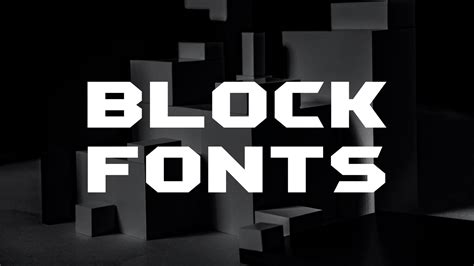
Unlock Your Creativity with Trendy & Free Block Fonts - Embrace the Modern Look
Are you tired of using the same old boring fonts in your designs? Do you want to add a modern touch to your projects? Look no further than trendy and free block fonts!
Not only do block fonts provide a clean and sleek aesthetic, but they also offer boldness and emphasis to your message. Studies have shown that the use of unique fonts can increase readability and recall.
With countless options for block fonts available online, you can boost your creativity and stand out from the crowd. Plus, since they are free to use, you can save money while still producing professional-looking designs.
Embrace the modern look and explore the wide variety of block fonts available. Whether you're designing a logo, creating a poster, or crafting social media graphics, trendy block fonts can elevate your work to the next level.
From chunky to slim, sci-fi to classic, there's a block font for every style and message. So why not unlock your creativity and try something new? Your audience will thank you for it.
Don't let your designs fall flat with overused fonts. Take the leap and incorporate trendy and free block fonts. Your projects will thank you for it!
The Power of Fonts in Your Creativity
When it comes to expressing your ideas through visual elements, fonts play a crucial role. A font is not just a style of letters and numbers; it can convey emotions, personality, and even enhance or detract from the overall tone and message of your design. Choosing the right font can make or break a project, and this is where trendy and free block fonts come in.
The Advantages of Using Block Fonts
Block fonts are also known as sans-serif fonts. They don't have the small quirks and embellishments that other fonts possess, which makes them more straightforward and modern in appearance. These fonts are perfect for designs that need to make a bold statement or deliver a clear message effectively. Here are some of the advantages of using block fonts in your projects:
Functionality
Block fonts are easier to read, especially in smaller sizes, because they don't have any extra details that can get lost. Their simplicity means that they work well in less-than-ideal conditions, such as low lighting or from a distance. This makes block fonts perfect for informational materials like menus, signs, and flyers.
Modern Look
Block fonts are often used in contemporary designs, especially those that require a modern, minimalist, or industrial look. They give off a clean, sleek aesthetic and add an air of sophistication to whatever they're used for. They're also highly customizable, making them ideal for branding and logo design.
Versatility
Block fonts can be paired with almost anything. They work equally well with script fonts, serif fonts, and even other block fonts, making them highly versatile and adaptable. You can use them in headline text or body text, and they'll always look great.
The Downside of Free Block Fonts
Despite their practicality and aesthetic appeal, free block fonts do have some disadvantages. One of the biggest issues when it comes to free fonts in general is that they're often overused. This can lead to a loss of originality and creativity in your work. Additionally, free block fonts often have limitations in terms of customization and font weights or styles.
Paid Block Fonts versus Free Block Fonts – What's the Difference?
While free block fonts offer the benefits of cost-effectiveness and accessibility, paid block fonts provide additional benefits that can help you elevate your design work further. Here are some of the key differences between paid and free block fonts:
| Feature | Paid Block Fonts | Free Block Fonts |
|---|---|---|
| Variety | Bigger range of options | Smaller selection |
| Customizability | More control over font style and weight | Less ability to modify the font |
| Uniqueness | Less commonly used, thus more unique | Often used, leading to less originality |
| Support | Usually accompanied by customer support and updates | No support available |
Closing Thoughts
In conclusion, if you're looking to unlock your creativity and embrace the modern look, trendy and free block fonts are an excellent way to do so. They provide a functional, versatile, and stylish way to communicate your message effectively. However, if you're serious about your design work and want more options and customizability, it may be worth investing in a paid block font. Regardless of which path you choose, remember always to experiment and have fun with your typography!
There are many websites that offer free block fonts such as Google Fonts, Font Squirrel, and DaFont.
Block fonts can be used in a variety of ways such as in logos, posters, flyers, social media graphics, and more. They work well when paired with other fonts, and can also be used in different sizes and colors to create contrast and hierarchy.
Yes, you can customize block fonts to fit your specific design needs. Many block fonts come with different variations such as different weights, styles, and sizes.